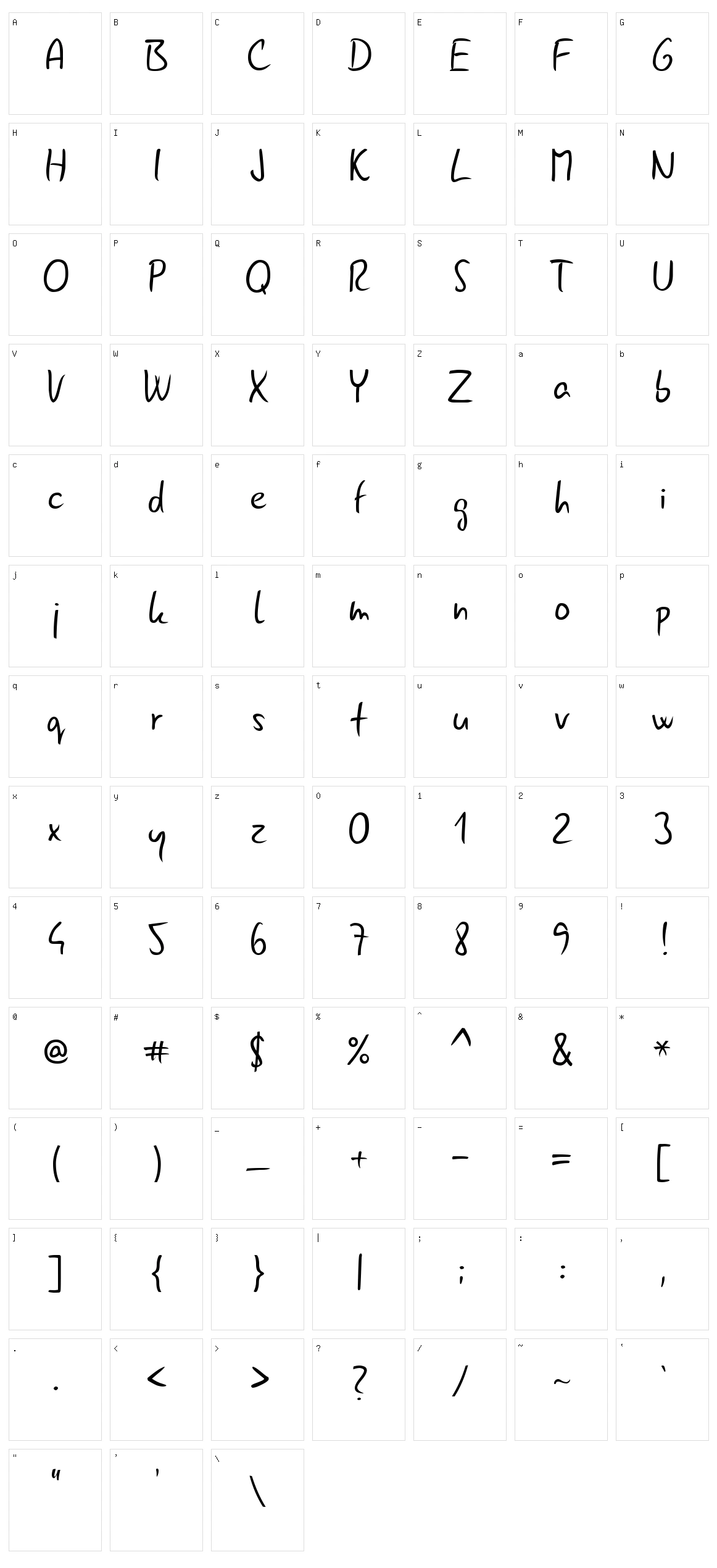
Gunny Rewritten
Designed by: V?t ÄŒond?k
Gunny Rewritten
based on Gunny Handwriting
by Vít Èondák
2001-2014
History
0.971 2014-02-06
* tweaked: Cyrillic mg, German s
0.97 2014-01-31
+ complete Cyrillic including basic kerning pairs
* 585 glyphs, 757 kerning pair total
+ sun male female
0.969 2014-01-30
+ all small Cyrillic letters
* tweaked: E Gamma beta epsilon eta lambda kappa pi tau theta
* modified positios: doublequotes
+ kerning pairs: Gamma+... Rho+... Tau+...
0.968 2014-01-27
* modified spacing of several Greek letters
+ most azbuka capital letters
0.967 2014-01-24
* modified shape: ()[]{}& Euro
* minor tweaks: CThmn =
+ kerning pairs: TC TG TQ
+ apostrophe ($02BC)
0.966 2014-01-14
* modified position: questiondown, exclamationdown
* modified shape: @:;()
+ several Greek+tonos, currency
+ kerning pairs: 7. 7,
0.965 2013-11-17
* modified shape and spacing: 0123456789
0.964 2013-08-21
* modified shape: Seikqyz + ring
+ kerning pairs: Vt, Et, F+..., S+...
0.963 2013-08-19
* modified shape: HQUZu + acute
* modified width: J
0.962 2013-08-15
* new kerning pairs for VA and IJ (+variations)
* modified thickness: EINTUt
* modified width: IK
* modified shape: V
0.961 2013-08-13
* modified thickness: BDEHINOPQRTXnqu
* 30 new kerning pairs
0.96 2013-07-17
* card symbols
0.959 2013-07-16
+ all Greek characters
* kerning pairs for f+
+ pound
0.958 2013-07-07
+ added many kerning pairs (V+, W+, P+, ...)
0.957 2013-07-06
+ added all characters with macron and tilde
* slightly modified AFKVWZms5 ...
+ added thorn
0.956 2013-07-04
+ added aliases for common Greek characters
+ added some characters with tilde
0.955 2013-07-03
* resized to 120 %
0.953 2013-07-02
+ all Polish characters
* improved kerning
* many glyphs modified: Kwmnt034 ...
0.952 2013-06-13
+ ...circumflex
* overlapping curves
* many minor fixes
* removed empty ligatures
* fixed kerning P...
* fixed line width: PZadltw ...
0.95 2003-08-16
+ oslash, euro
* t
0.94 + a-udieresis